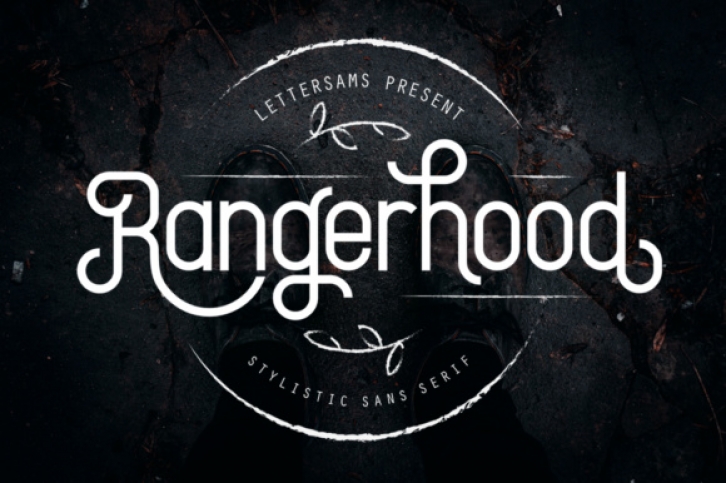
Rangerhood offers a wide range of options for creating logos, titles and titles. It is suitable for books, editorials, packaging, advertising, brand imaging and more.
It’s a modern sans serif font with a vintage touch, giving users the freedom to make memorable designs.